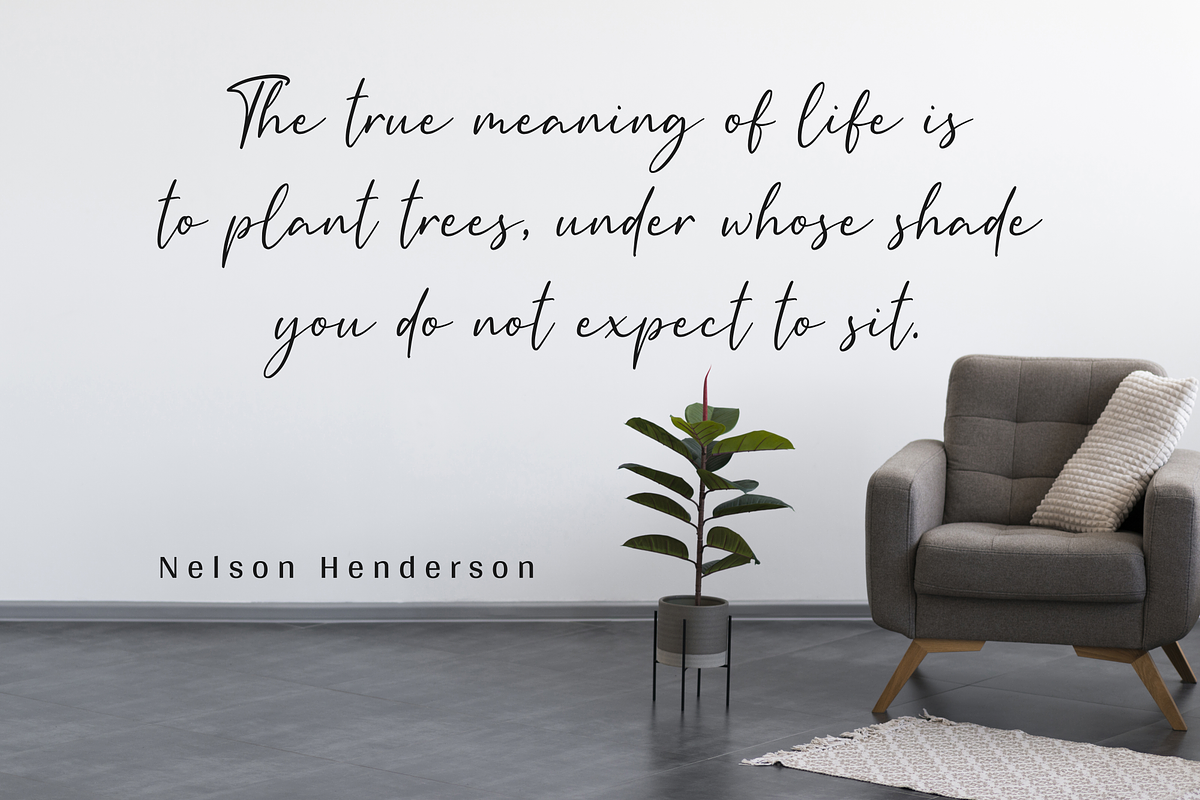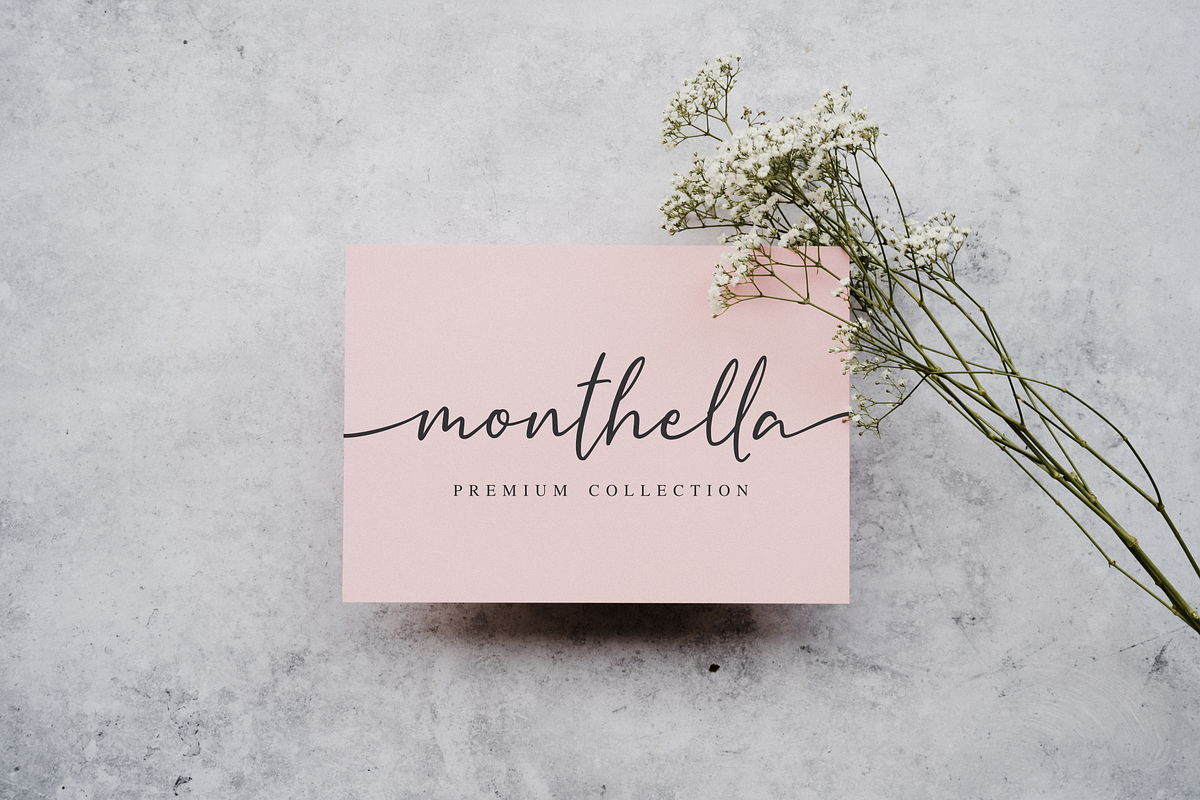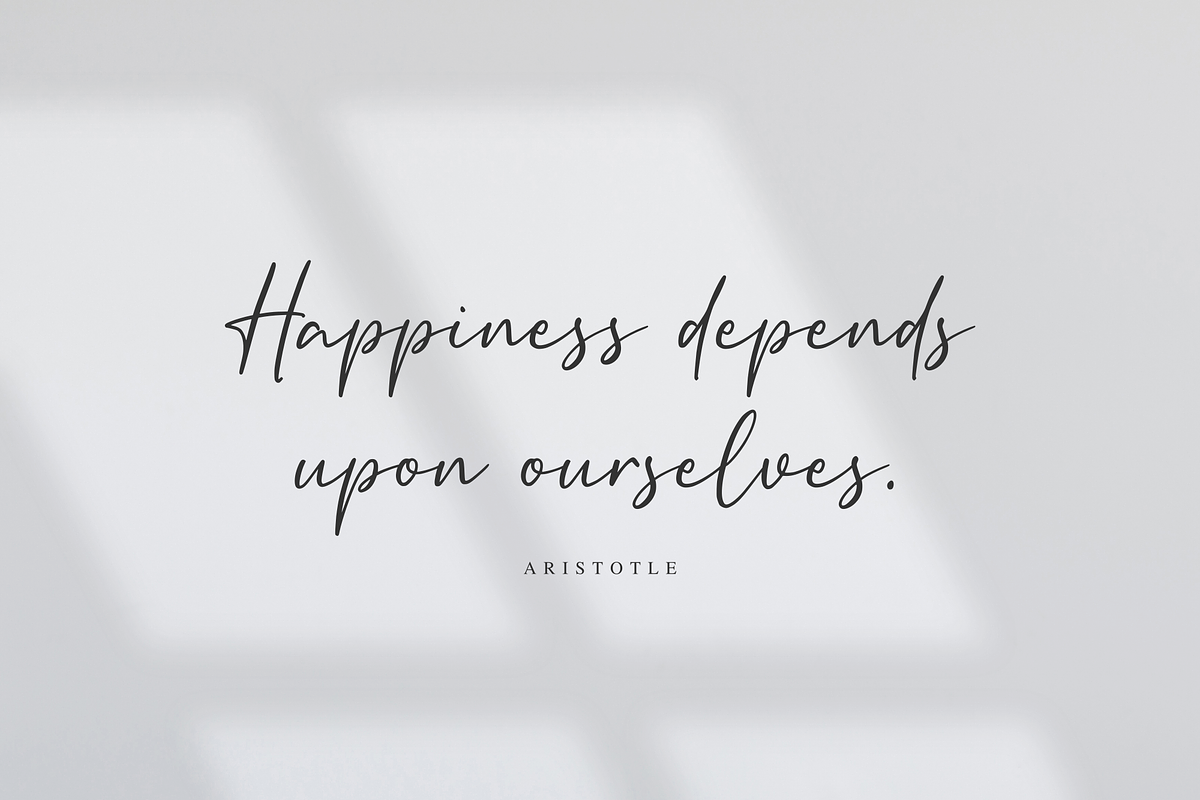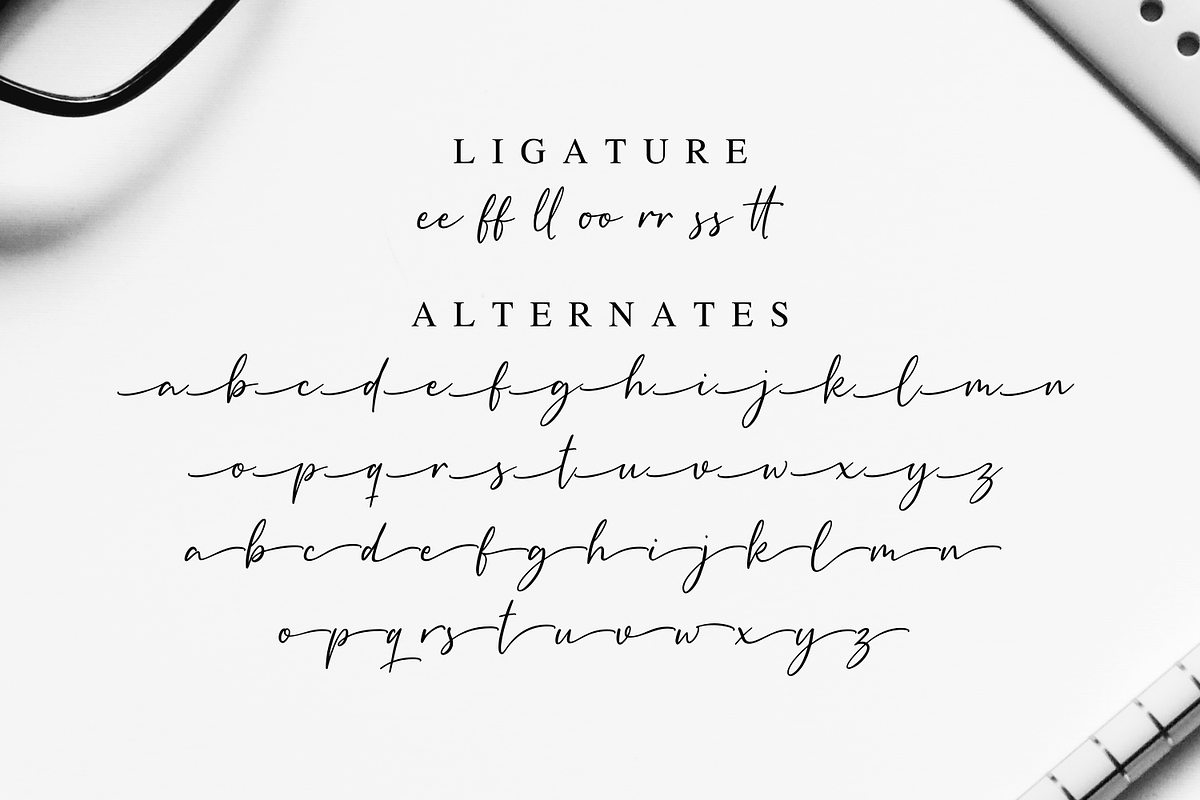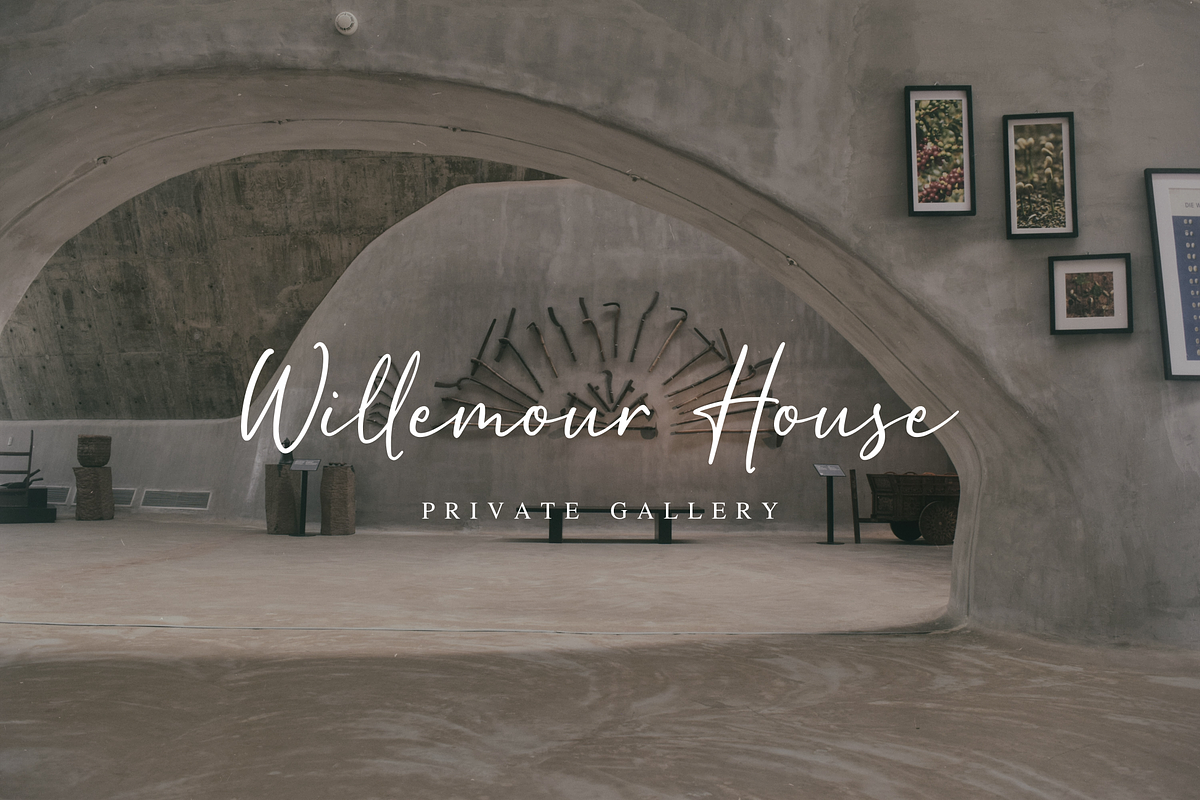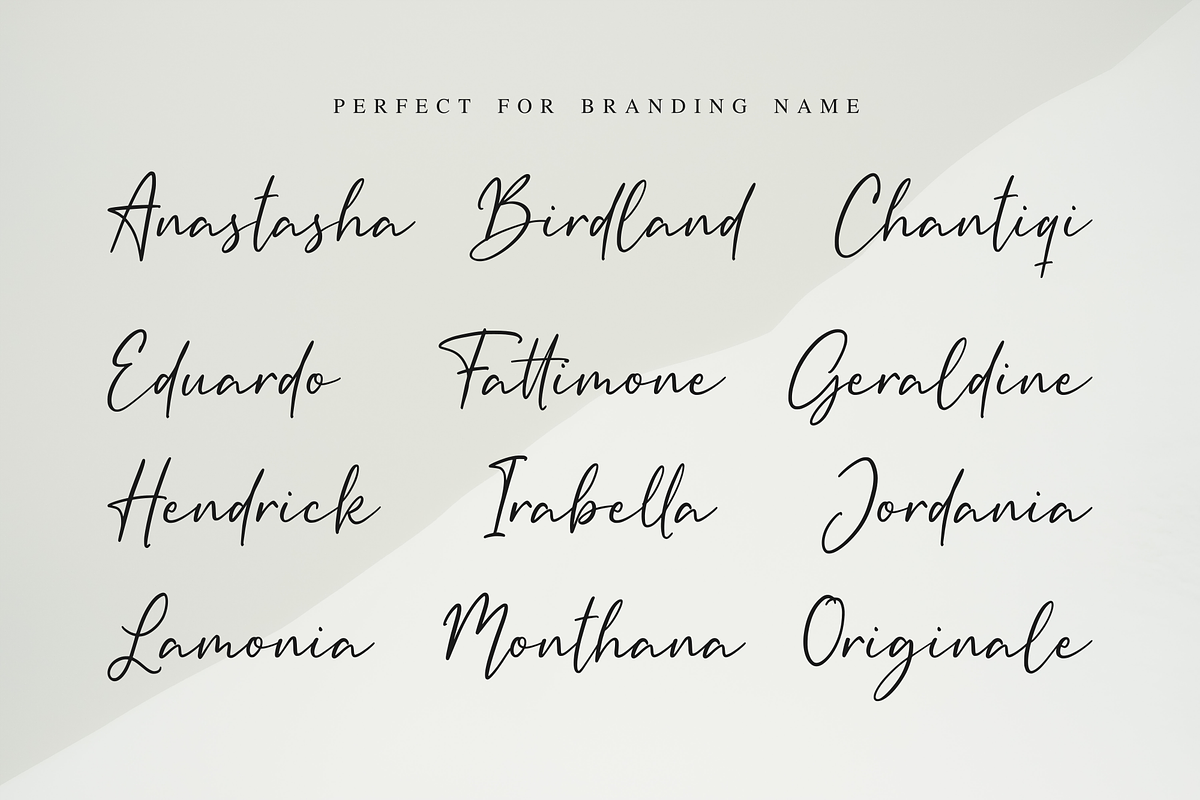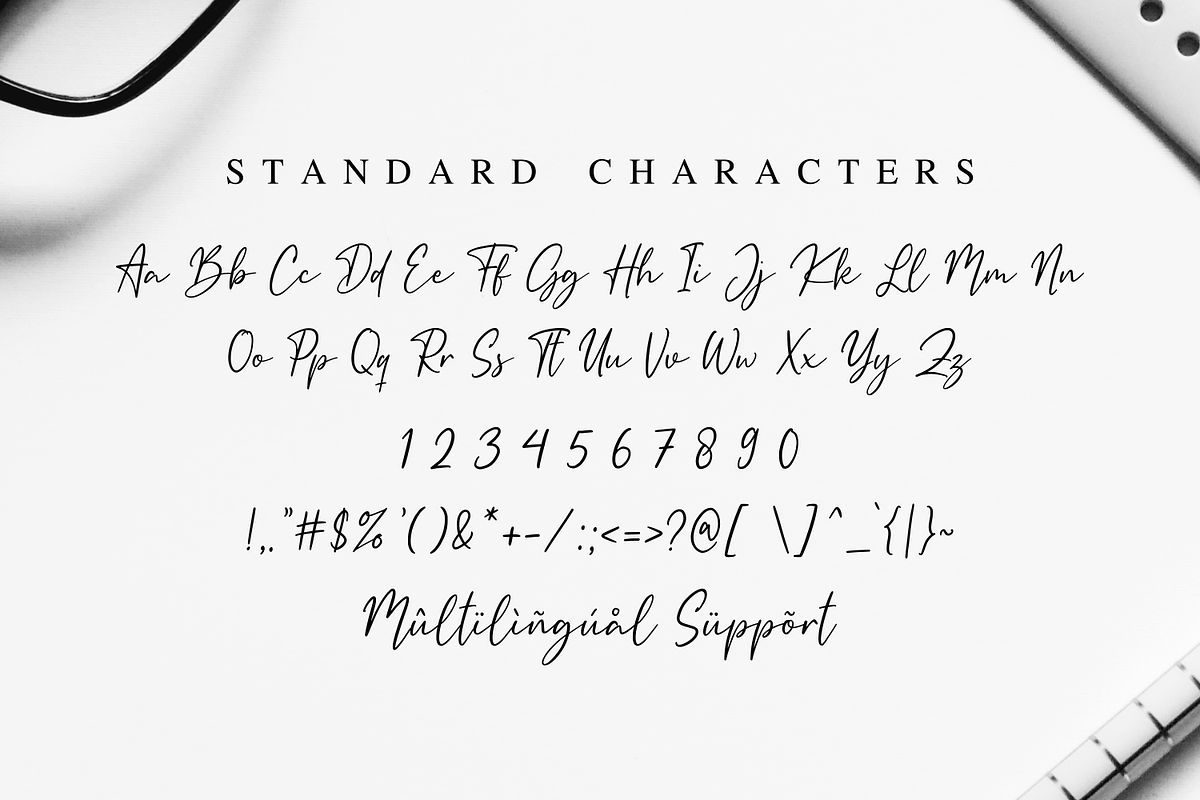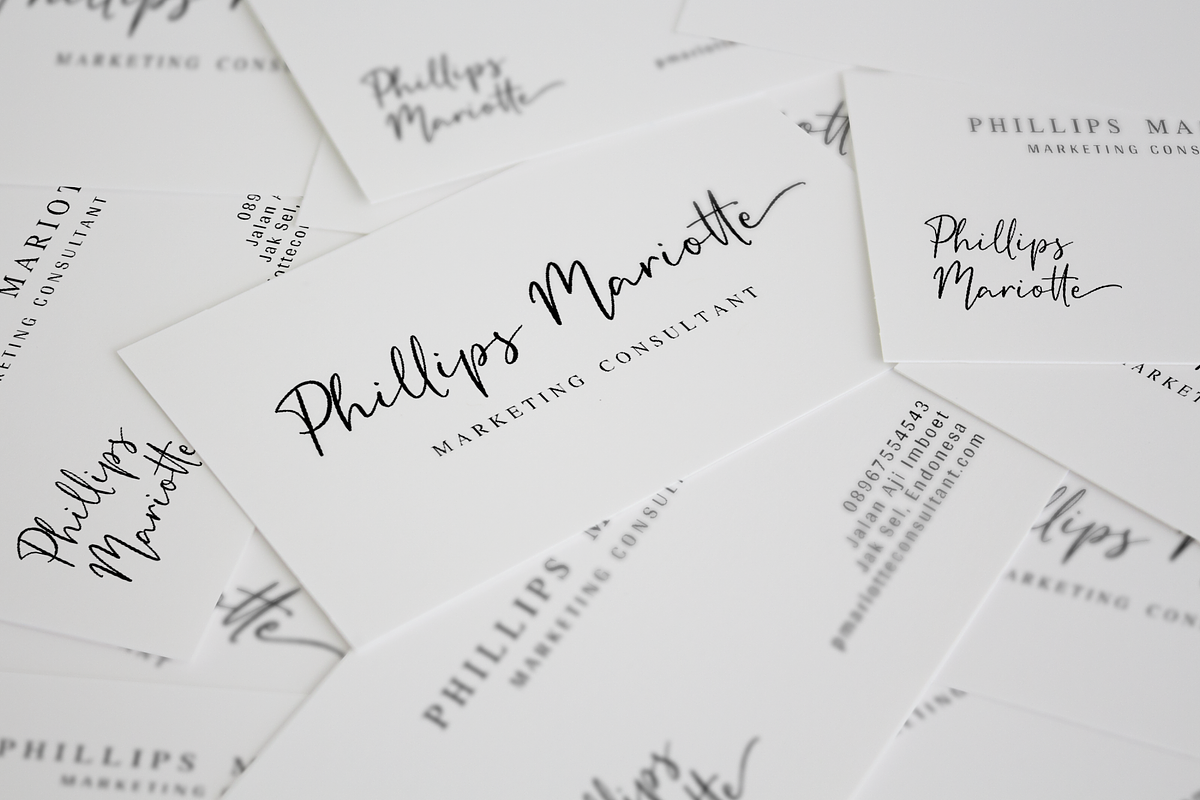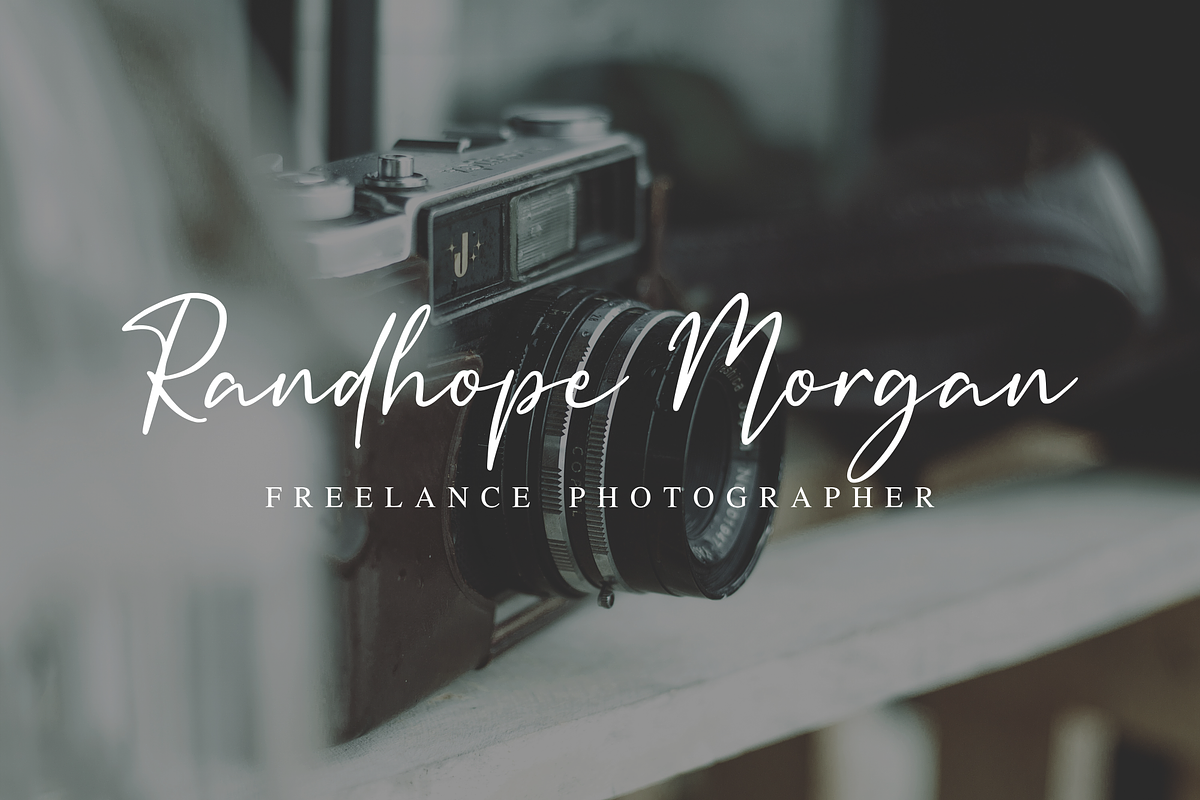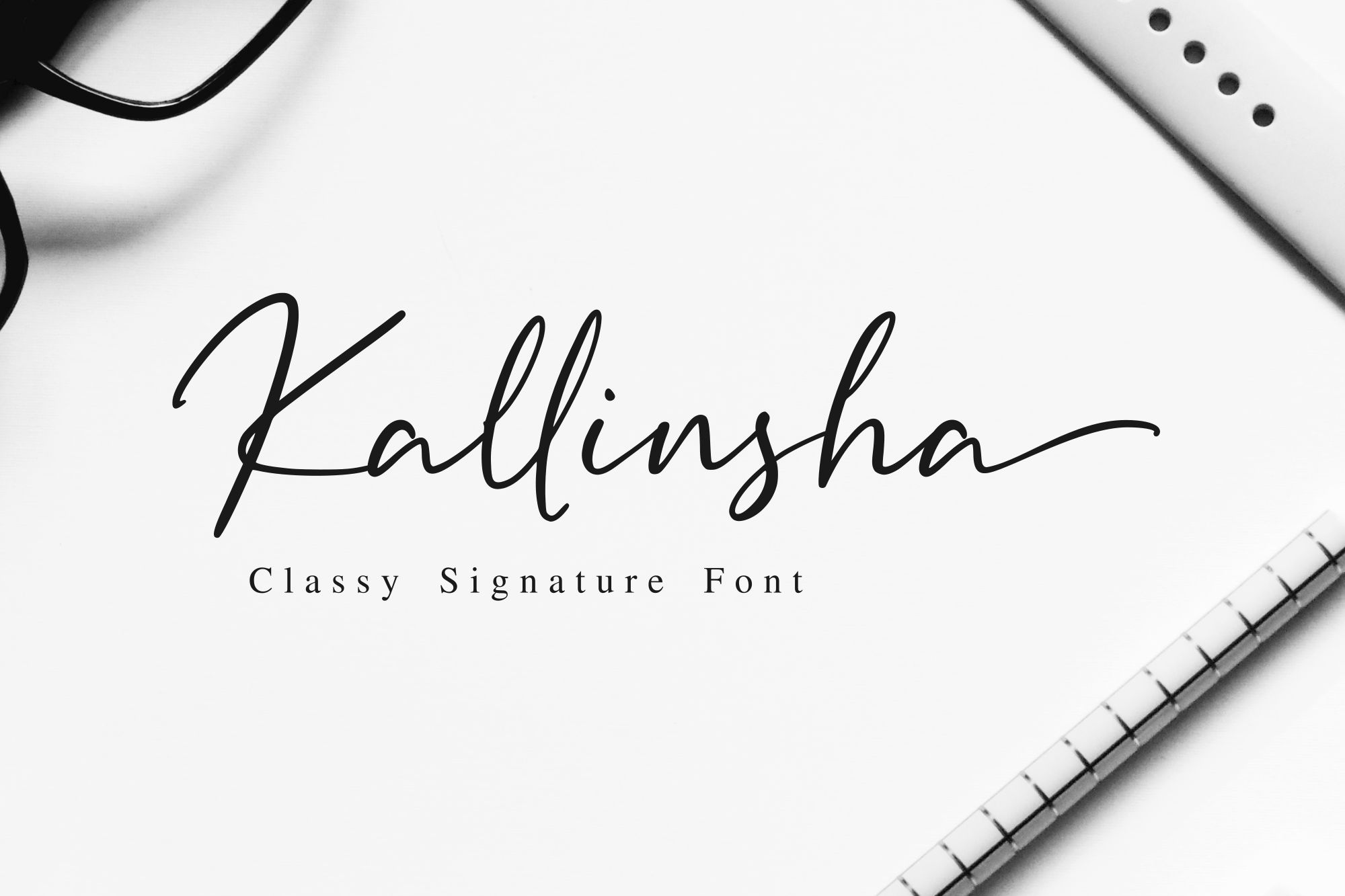
Kallinsha - Classy Signature Font
Kallinsha is a classy signature font crafted to capture the beauty of authentic handwriting with a refined and sophisticated touch. Its smooth strokes, elegant curves, and natural flow create a luxurious handwritten look that feels both personal and professional.
Designed for creatives, entrepreneurs, and brands, Kallinsha adds a timeless elegance to a wide range of projects. Whether you're creating wedding invitations, branding materials, logos, packaging, social media content, or editorial designs, this font delivers a graceful and stylish impression.